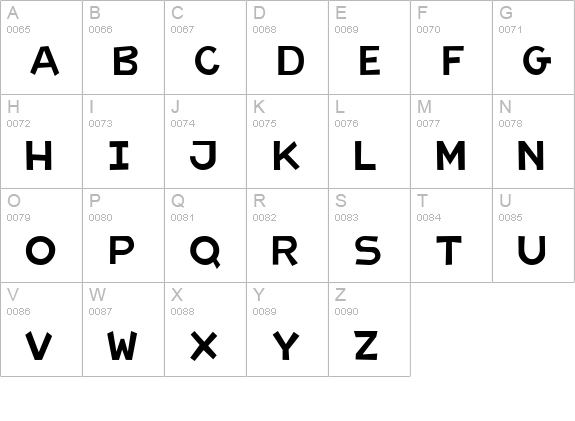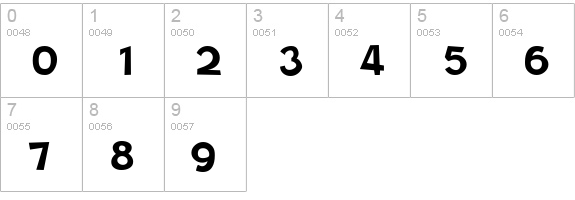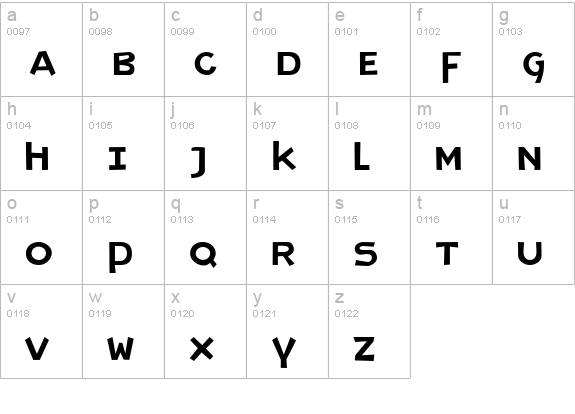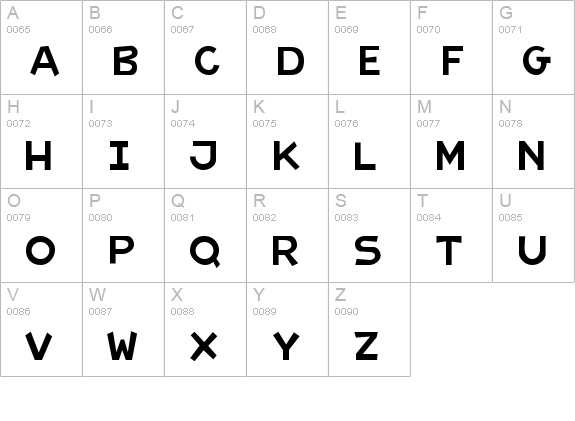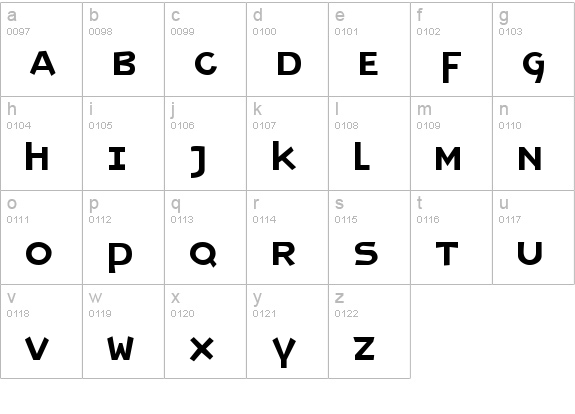
Letrinth font is a stunning display typeface that captures the essence of elegance and sophistication. Its timeless design is perfect for adding a touch of class to any project, whether it's a logo, branding materials, or a stylish invitation. With its clean lines and graceful curves, Letrinth font exudes a sense of refinement and luxury. Each letter has been meticulously crafted to ensure perfect harmony and balance, making it a truly captivating choice for any discerning designer. But what sets Letrinth font apart is not just its impeccable design, but also its accessibility. This incredible font is available for free, allowing you to elevate your creative projects without breaking the bank. You can easily download Letrinth font from FontsMarket.com, a trusted source for high-quality fonts. Whether you're a professional designer looking to enhance your portfolio, or an amateur enthusiast seeking to add a touch of sophistication to your personal projects, Letrinth font is the perfect choice. Its versatility and beauty will undoubtedly leave a lasting impression, making it a must-have in your font collection. So why wait? Download Letrinth font today and unlock a world of endless possibilities. With its timeless design and the convenience of being freely available, Letrinth font is a true gem that will elevate your creative endeavors to new heights.